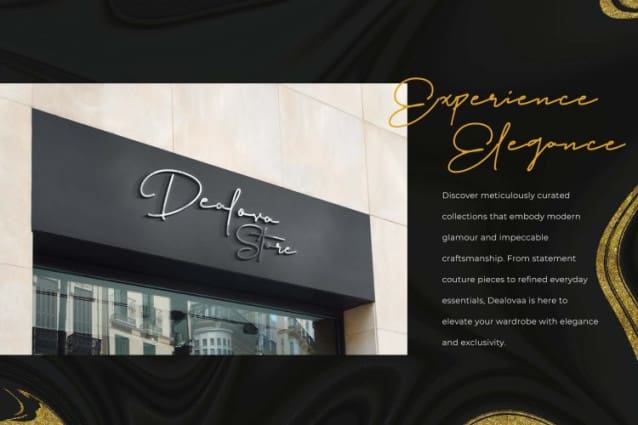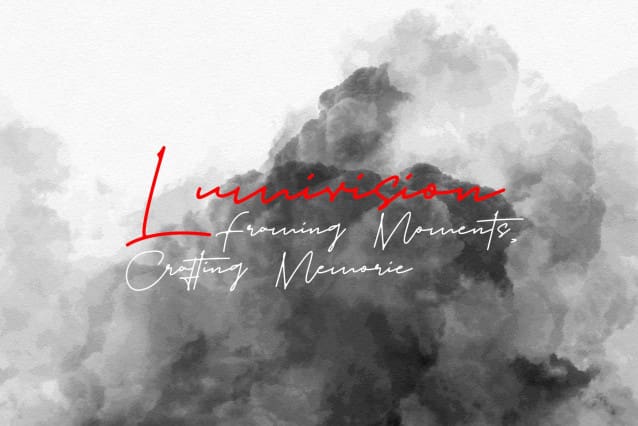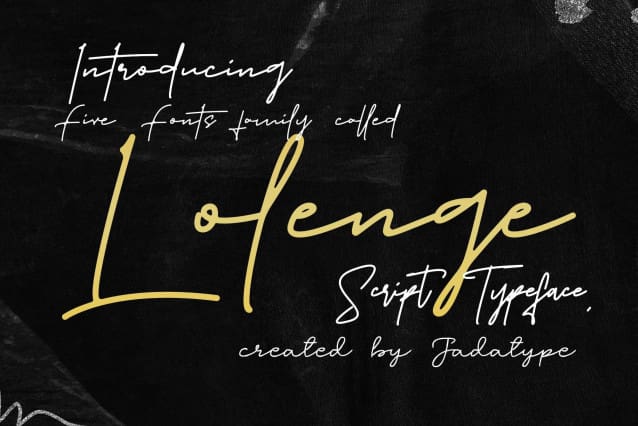
Lolenge Script Font
Lolenge Script Font is a script typeface that comes with 5 styles of script font, flowing lines that add elegance to any design. With full multilingual support, it’s perfect for global projects. Easily installable in Adobe and Affinity applications, Lolenge enhances your creative workflow, making it ideal for branding, invitations, and more.